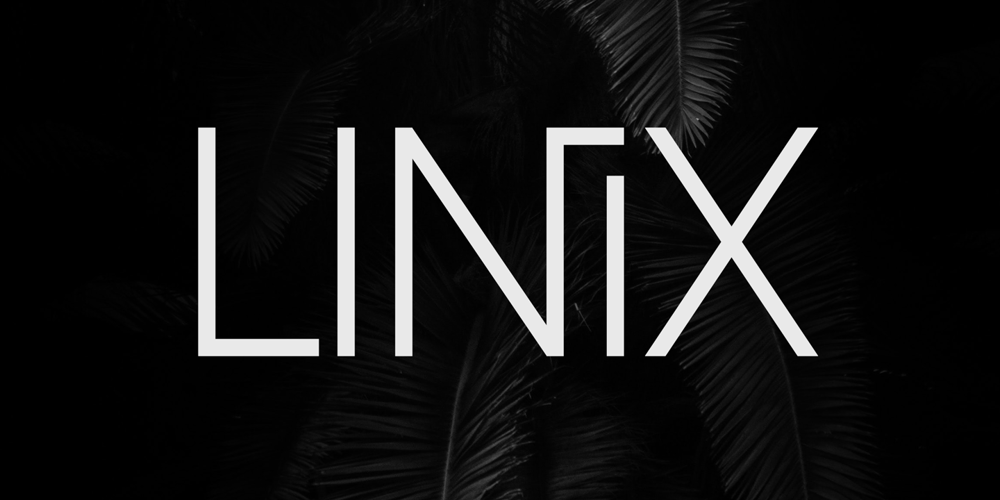
Linix
Linix font
Linix Font Family was designed by Vladimir Fedotov, Plamen Petrov and published by VP Creative Shop. Linix contains 2 styles and family package options. Introducing Cult VP typefaceUnlock the creative potential with Cult VP typeface – a modern and timeless font loaded with 20 styles that will surely elevate your writing. Enhance your visuals further by utilizing 87 languages support and ligature glyphs for an inspirational typography experience like no other!